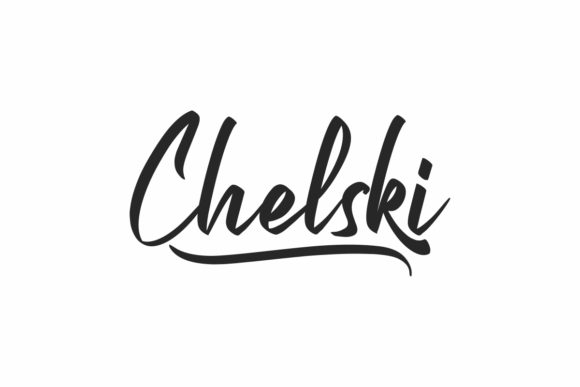
Chelski Font: A Beautiful and Trendy Handwritten Font
In the world of typography, fonts play a crucial role in conveying the tone and personality of a design. A well-chosen font can elevate a design from ordinary to extraordinary, and Chelski font is one such font that can add a touch of nostalgia and sophistication to your designs. In this article, we will explore the Chelski font, its features, and how it can be used to create stunning designs.
What is Chelski Font?
Chelski is a beautiful and trendy handwritten font that reads as strong, confident, and dynamic. It is a carefully crafted font that combines the elegance of traditional handwriting with the modernity of digital design. The font features a unique blend of cursive and print styles, making it versatile and suitable for a wide range of design applications.
Key Features of Chelski Font
- Handwritten style: Chelski font is a handwritten font that mimics the natural flow of handwriting, giving it a personal and organic feel.
- Strong and confident: The font features bold and confident strokes, making it perfect for headlines, titles, and emphasis text.
- Dynamic and versatile: Chelski font is highly versatile and can be used for a wide range of design applications, from digital media to print materials.
- Nostalgic character: The font has a nostalgic feel to it, evoking memories of traditional handwriting and classic typography.
Uses of Chelski Font
Chelski font is a highly versatile font that can be used for a wide range of design applications. Here are some of the ways you can use Chelski font:
Digital Media
Chelski font is perfect for digital media, including:
- Web design: Use Chelski font to create stunning website headers, titles, and emphasis text.
- Social media graphics: Create engaging social media graphics, including Facebook posts, Twitter headers, and Instagram stories.
- Digital advertising: Use Chelski font to create eye-catching digital ads that grab attention.
Print Materials
Chelski font is also suitable for print materials, including:
- Brochures and flyers: Use Chelski font to create eye-catching brochures and flyers that showcase your products or services.
- Posters and banners: Create stunning posters and banners that grab attention and communicate your message.
- Business cards: Use Chelski font to create professional and stylish business cards that make a lasting impression.
Benefits of Using Chelski Font
Using Chelski font offers several benefits, including:
Unique and Memorable
Chelski font is a unique and memorable font that can help you stand out from the crowd. Its distinctive style and flair make it perfect for brands that want to create a lasting impression.
Versatile and Adaptable
Chelski font is highly versatile and adaptable, making it suitable for a wide range of design applications. Its flexibility allows you to use it for both digital and print materials.
Nostalgic and Emotional
Chelski font has a nostalgic feel to it, evoking memories of traditional handwriting and classic typography. This emotional connection can help create a deeper connection with your audience.
Experiment with different colors to find the perfect combination that suits your brand and design.
Pair with Other Fonts
Chelski font can be paired with other fonts to create a unique and harmonious design. Experiment with different font combinations to find the perfect match.
Chelski font is a beautiful and trendy handwritten font that can add tons of nostalgic character to your designs. Its unique blend of traditional handwriting and modern digital design makes it perfect for a wide range of design applications. With its strong and confident strokes, Chelski font is sure to make a lasting impression on your audience. Whether you’re designing for digital media or print materials, Chelski font is a versatile and adaptable font that can help you achieve your design goals.